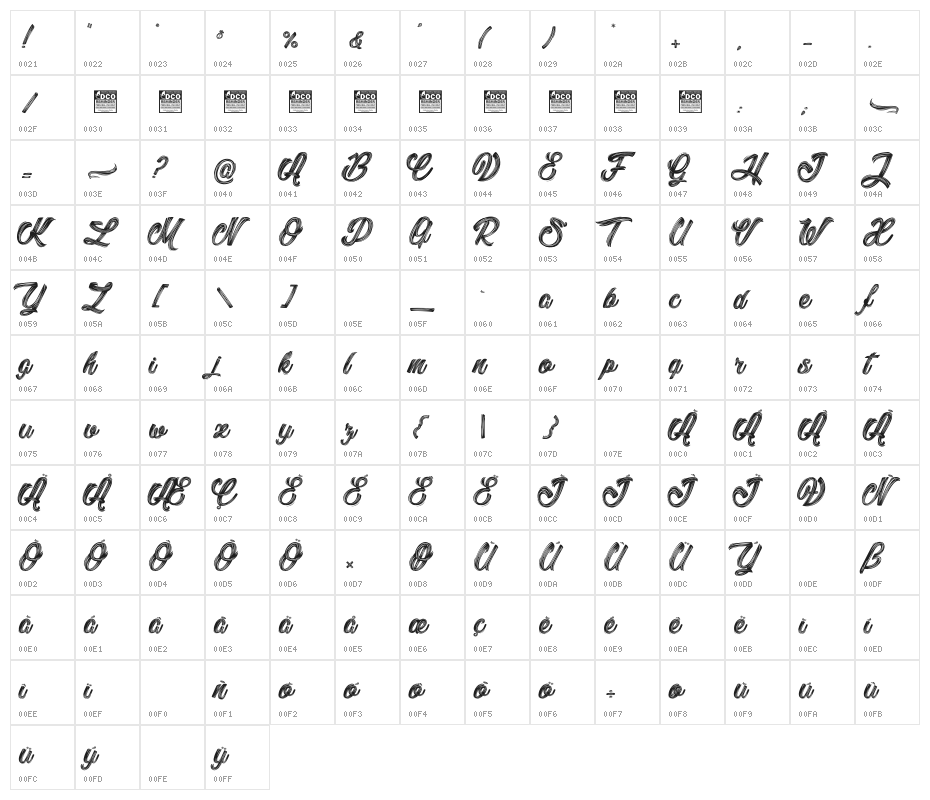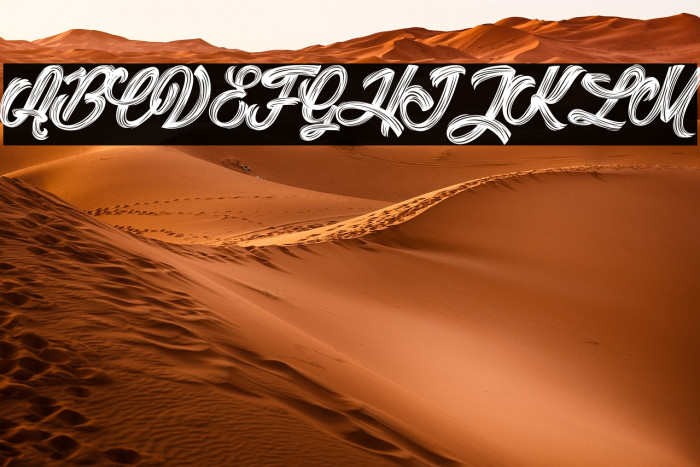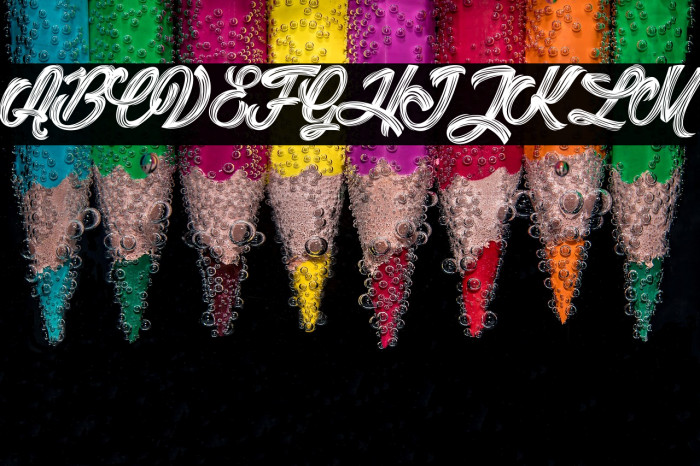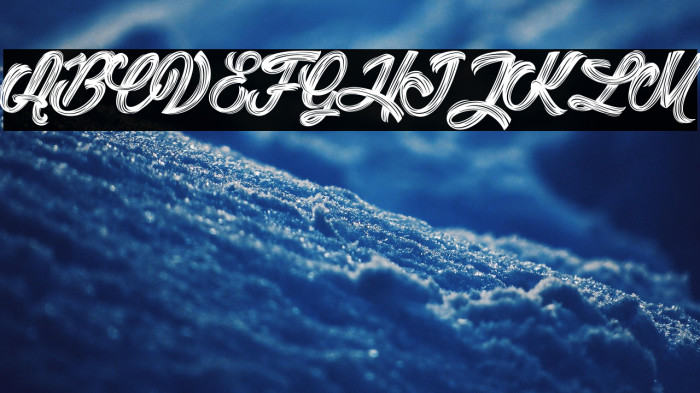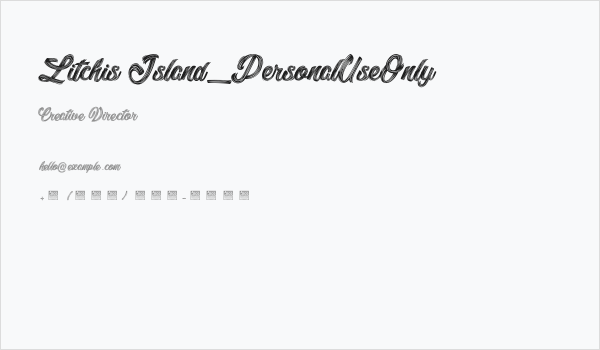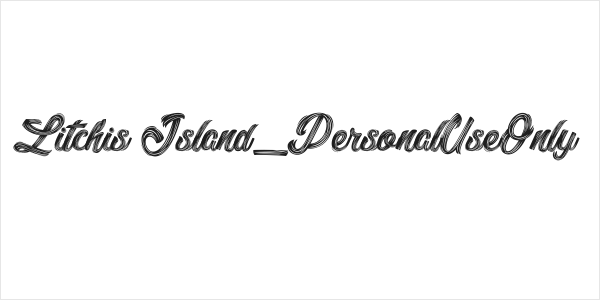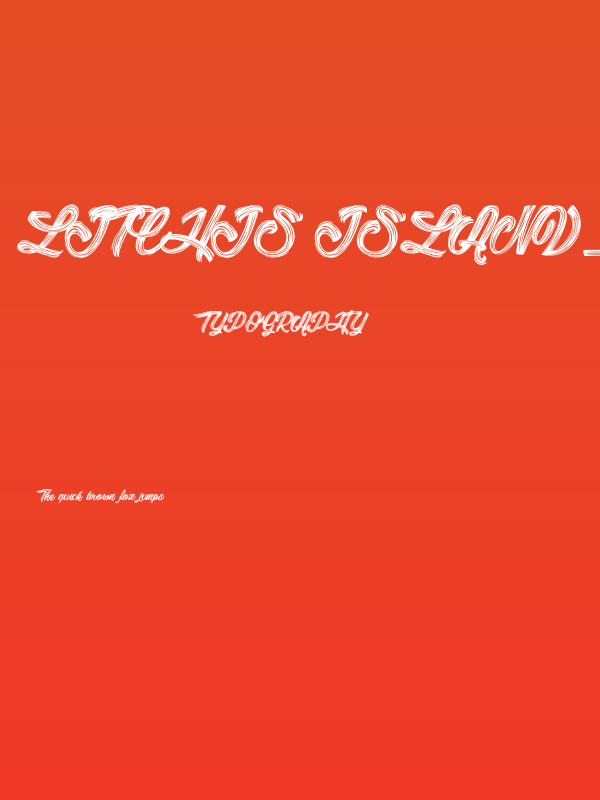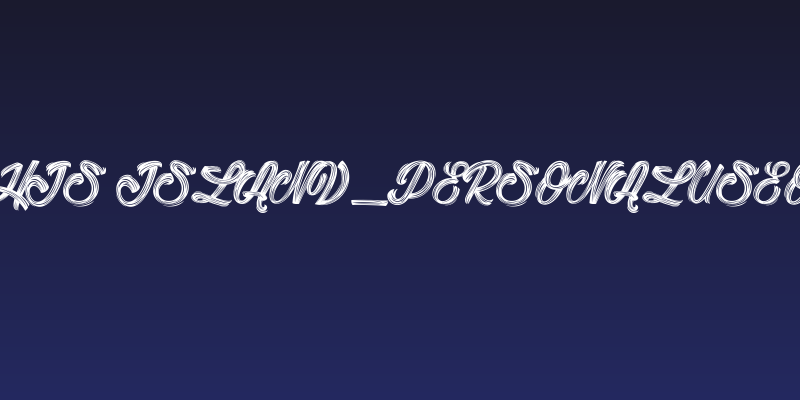
Litchis Island_PersonalUseOnly Font
Litchis Island_PersonalUseOnly Description
This font features a bold, flowing script style with intricate line work that gives it a textured, layered appearance. The characters are connected, emphasizing a sense of continuity and elegance. The uppercase letters are particularly ornate, with exaggerated loops and flourishes that add a decorative touch. The lowercase letters maintain the same flowing style, ensuring consistency throughout the text. The numerals and special characters follow the same design principles, making them cohesive with the alphabet. This font is ideal for projects that require a touch of sophistication and artistic flair.
| Proposed Projects | Ideal for wedding invitations, branding, logos, and artistic posters. |